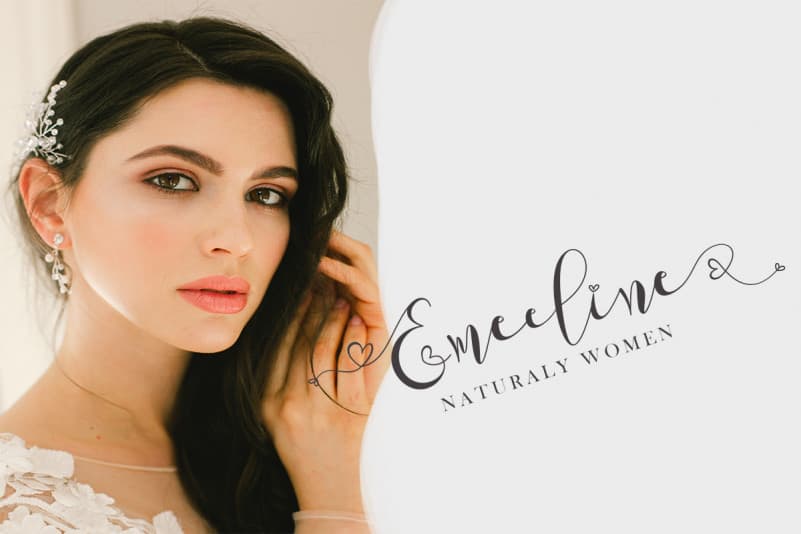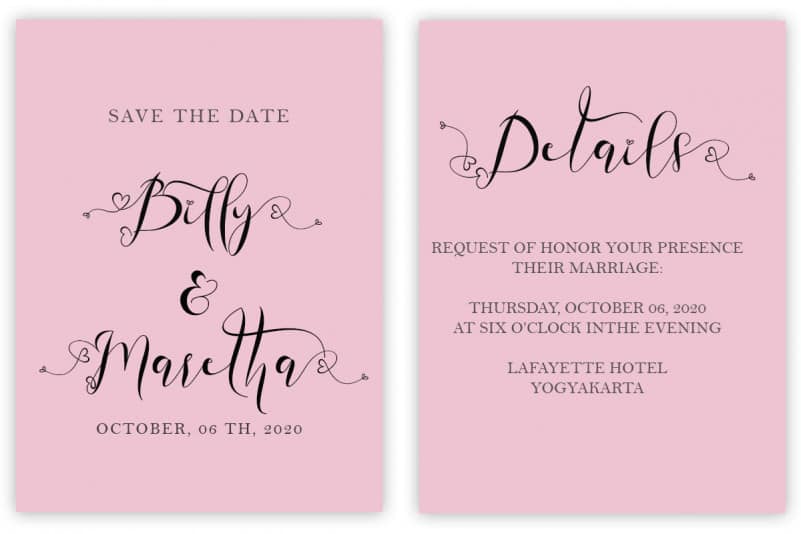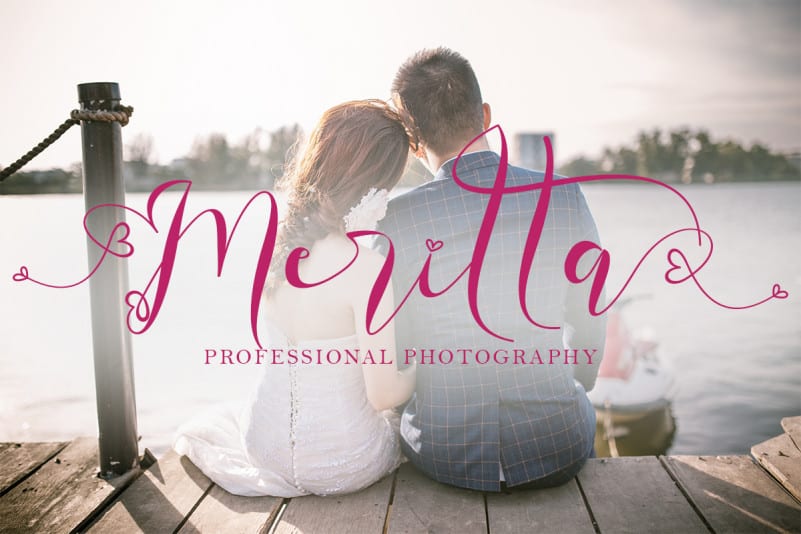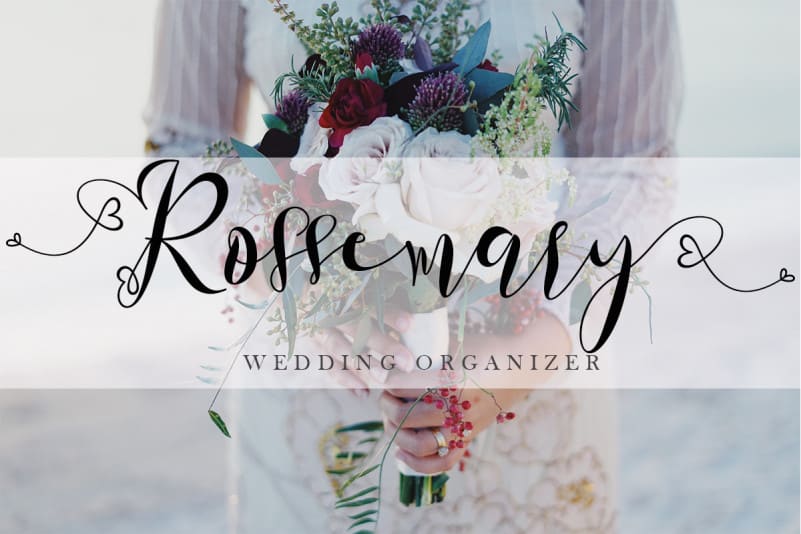
Astherlia Calligraphy Font
Astherlia Calligraphy Font is a modern handwritten font that is made with a subtle touch resulting in a high quality font. This font is very beautiful and elegant which is suitable for all kinds of your work. This font is perfect for all wedding needs (wedding invitations, wedding photography, decorations, and other wedding designs). It is also suitable for promoting your business (hotels, villas, vacation spots, products, services or other promotions. Also suitable for promo updates, logos, branding, posters, or status updates on social media.